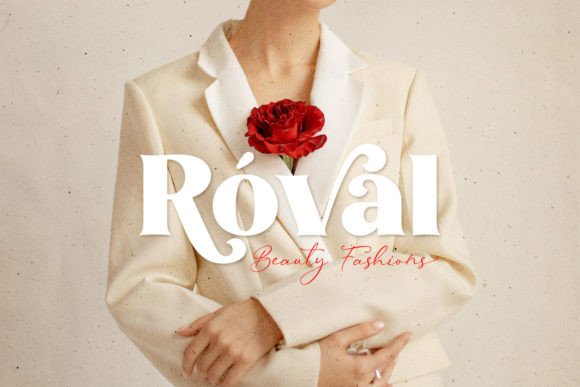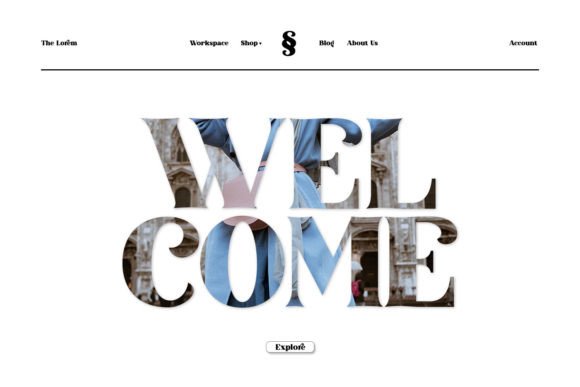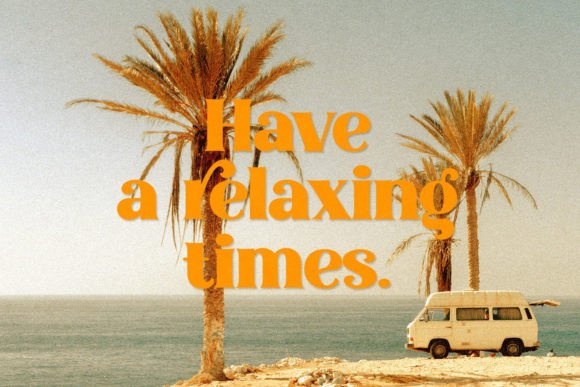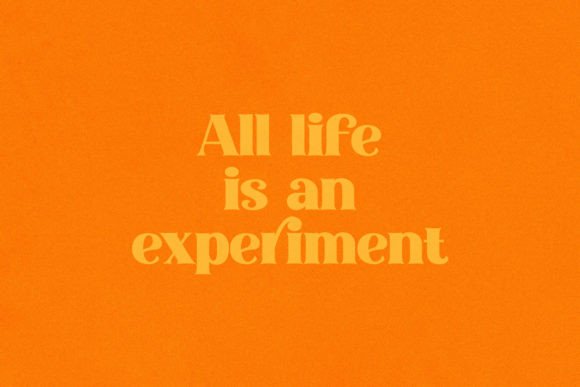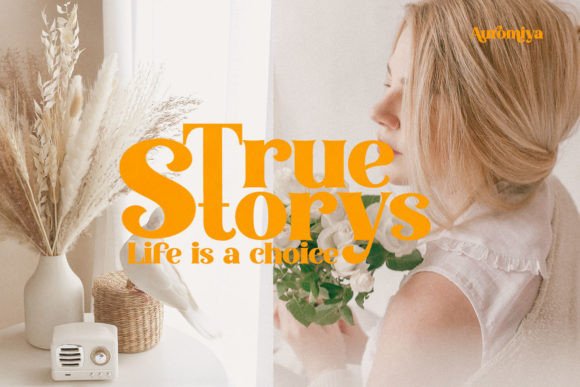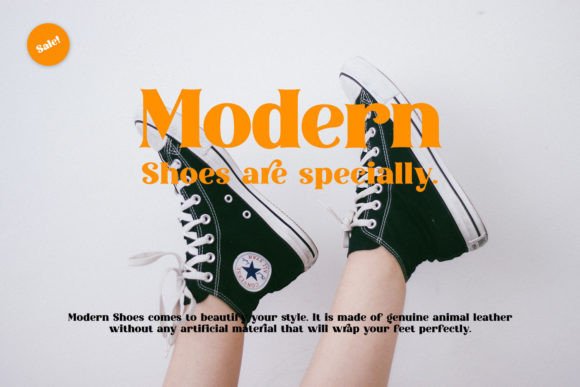
The Perfect Match for Your Next Creative Project
You know that feeling when you’re in the middle of brainstorming, and the perfect font suddenly pops into your head? It’s like a spark of inspiration that sets your creative juices flowing. For many designers, that moment is what makes all the hard work worth it. And if you’re anything like us, you’re always on the lookout for the next big thing to elevate your designs.
Enter the Auromiya Font – a classy, retro serif font with a cool, modern twist. With its timeless charm and versatility, this font is an incredible asset to any designer’s library. Whether you’re working on a high-end magazine, a vintage-inspired poster, or a modern website, Auromiya Font has the potential to take your creations to the next level.
Auromiya Font Key Features
- Font Family: Auromiya Font is a unique, hand-drawn font designed to evoke a sense of elegance and sophistication.
- Character Count: The font includes a wide range of characters, including uppercase and lowercase letters, numbers, and punctuation marks.
- Unique Characteristics: Auromiya Font features a distinctive, flowing design with intricate details and subtle flourishes, making it perfect for headings, titles, and other display typography.
Auromiya Font Review
I recently had the chance to work with Auromiya Font, and overall, I’m impressed. ✨ The font has a unique, elegant feel to it, making it perfect for creating sophisticated and luxurious designs. The bold and regular weights are well-balanced, and the ligatures add a touch of sophistication to the overall look.
- Unique and elegant feel ✨
- Well-balanced bold and regular weights ✨
- Ligatures add sophistication ✨
However, I did encounter some limitations with Auromiya Font. ⚠️ The font doesn’t come with a full set of characters, which can make it difficult to work with for non-English languages. Additionally, the font is quite ornate, which can make it challenging to read in smaller font sizes.
- No full set of characters ⚠️
- Ornate design can make it hard to read in smaller font sizes ⚠️
Overall, I would say that Auromiya Font is a great choice for designers looking to create high-end, luxurious designs. However, it may not be the best choice for projects that require a full set of characters or smaller font sizes.
Getting the Most Out of Auromiya Font
For optimal results, use Auromiya Font in combination with elegant designs and subtle color schemes.
Experiment with different font sizes and styles to create a visually appealing effect.
Auromiya Font is ideal for:
Branding and logos
Magazine and book covers
Alternatives to Auromiya Font
Great Vibes is a beautiful, elegant script font perfect for creating a luxurious and sophisticated look. It’s ideal for branding, invitations, and other materials that require a touch of elegance. Great Vibes is more cursive than Auromiya Font, with a more fluid and organic feel.
Carolyna Pro is a modern, elegant script font that’s perfect for creating a high-end and sophisticated look. It’s ideal for branding, packaging, and other materials that require a touch of luxury. Carolyna Pro has a more refined and polished feel than Auromiya Font, making it perfect for corporate materials.
Alex Brush is a elegant, handwritten font that’s perfect for creating a personal and emotional connection with your audience. It’s ideal for branding, invitations, and other materials that require a touch of warmth and personality. Alex Brush has a more rustic and organic feel than Auromiya Font, making it perfect for creative and artistic projects.
Dancing Script is a beautiful, elegant script font that’s perfect for creating a fun and playful look. It’s ideal for branding, invitations, and other materials that require a touch of whimsy and creativity. Dancing Script has a more energetic and dynamic feel than Auromiya Font, making it perfect for projects that require a lot of movement and energy.
Q: Does the Auromiya Font support Unicode characters?
Yes, the Auromiya Font supports a wide range of Unicode characters, including Latin, Cyrillic, and Greek alphabets. This makes it a versatile font for designing documents and graphics in multiple languages.